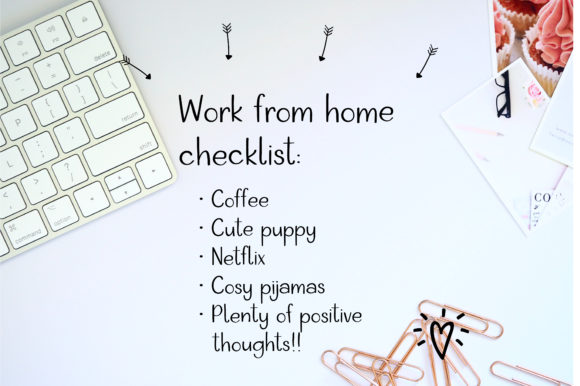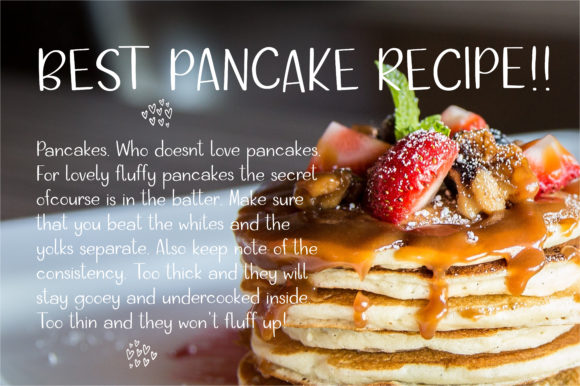
Thinkers Barn Font
db-ku.com - Script & Handwritten -- Thinkers Barn is a cute and friendly handwritten font. It will look particularly adept when used in logos, branding, packaging design, and much more. This masterfully designed Thinkers Barn is a true must-have.